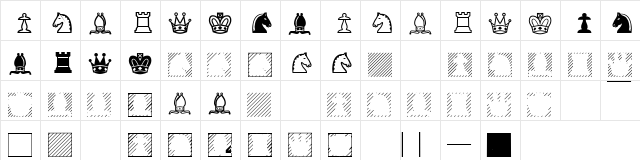
XBobsStandardChess Regular Font Preview
XBobsStandardChess Regular
Design Context for XBobsStandardChess Typeface
XBobsStandardChess is a composed and adaptable typeface that performs quietly and consistently across a wide range of design contexts.